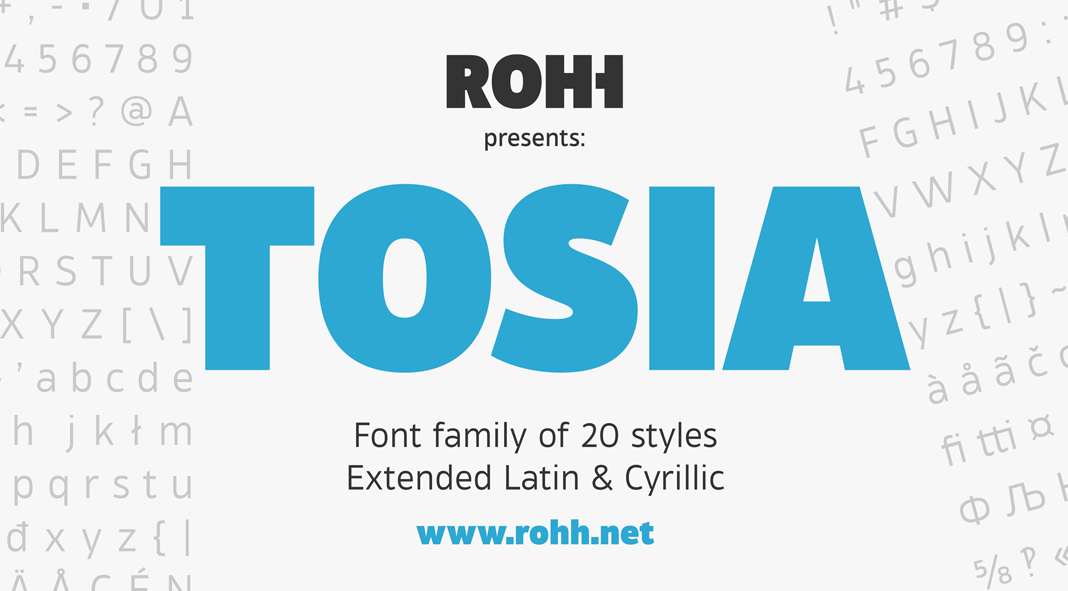
Tosia, a geometric sans serif from foundry ROHH.
Designed in 2016 by Roch Modrzejewski, Tosia is a modern sans serif that comes in 20 styles consisting of 10 weights ranging from Hairline to Black plus matching Italics for each weight. The family is based on a unique geometric typeface with slightly condensed dimensions. Due to its diverse weights and excellent legibility, you can use it for both headlines and text sections of any size and length. Tosia’s modern look and feel is a great choice for plenty of applications such as app and web design projects as well as all kinds of print purposes. Read more below or get the family as introductory offer on Fontspring.
The Tosia font family, a typeface with lots of typographic features.
As already mentioned, the family consists of 20 styles including 10 weights plus corresponding Italics. Furthermore, the family comes with a broad range of OpenType features such as stylistic alternates, contextual alternates, case sensitive forms, small caps, ligatures, lining, oldstyle, tabular, small cap and circled figures, slashed zero, fractions, superscript and subscript, ordinals, currencies and symbols. With extended language support including Cyrillic characters, this typeface was made for highest professional needs. For additional information on all features and options, just follow the link below.